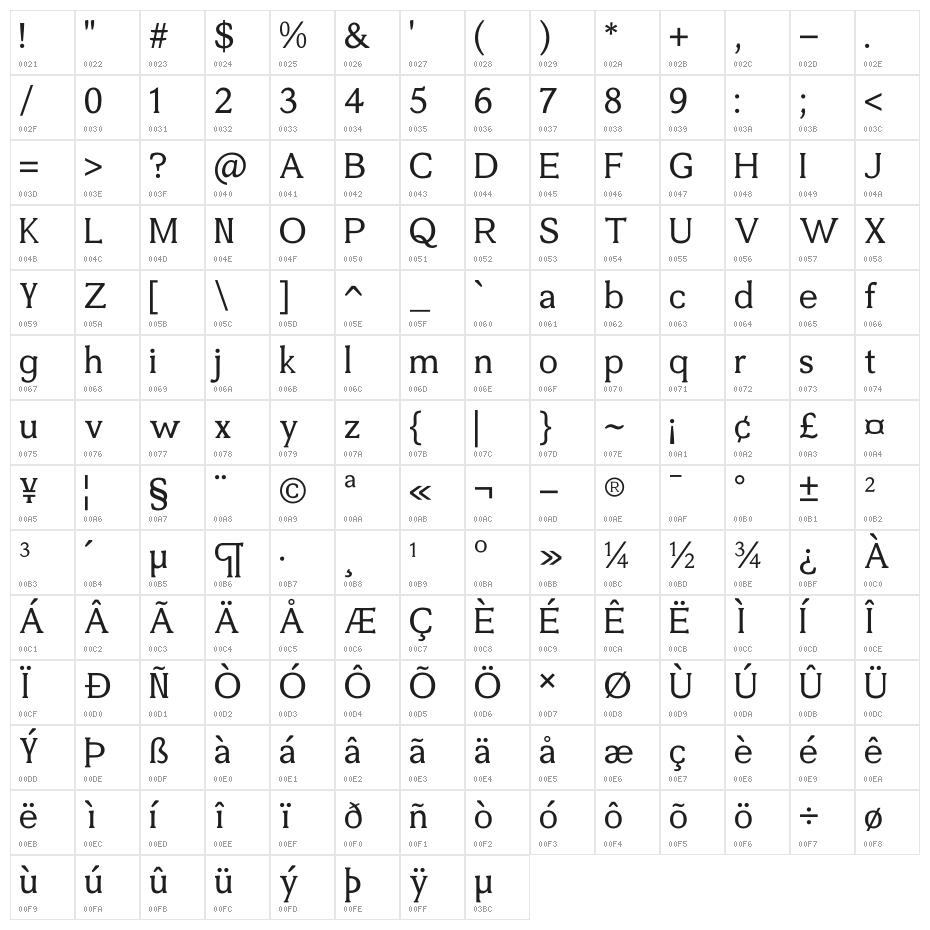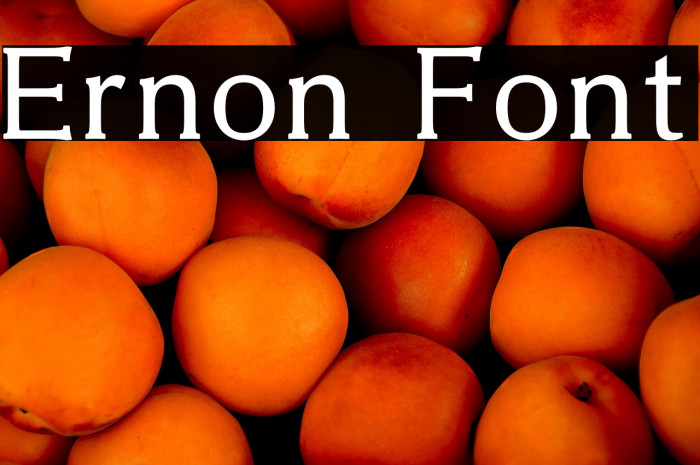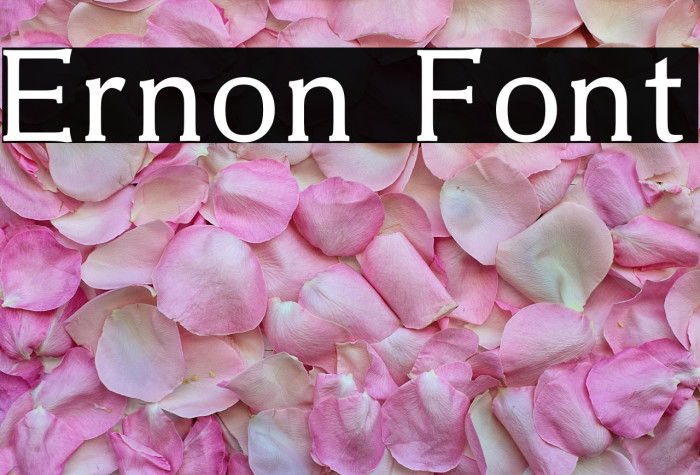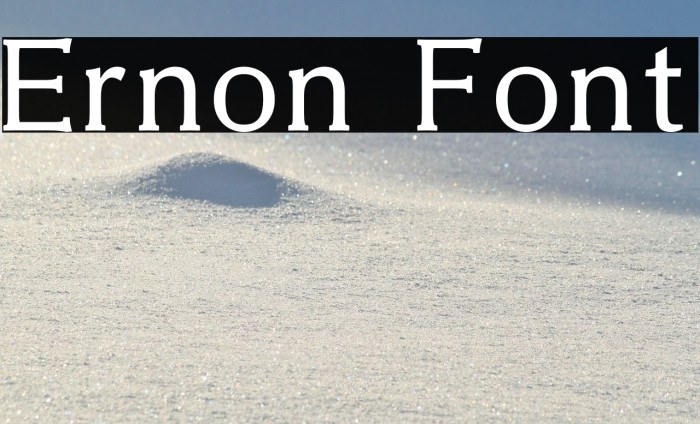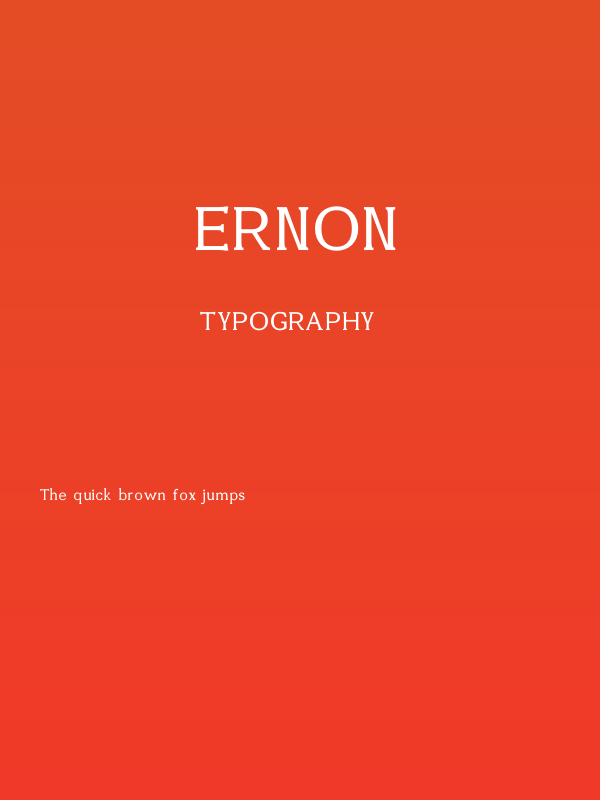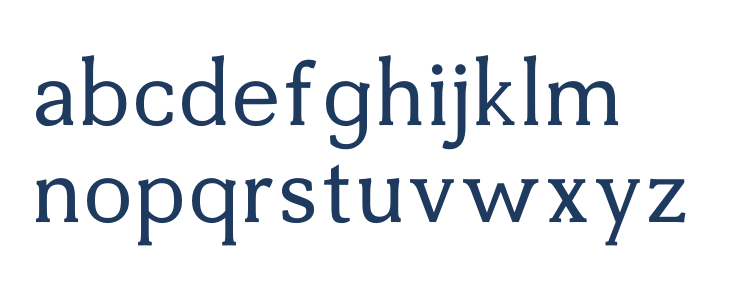
Ernon Font
Ernon Description
This font features a classic serif style with elegant, thin strokes and subtle curves. The uppercase letters are well-proportioned, with a slight contrast between thick and thin lines, giving it a refined and sophisticated appearance. The lowercase letters maintain a consistent style, with rounded edges and a smooth flow, enhancing readability. The numerals are clear and distinct, matching the overall aesthetic of the font. Special characters are designed with the same attention to detail, ensuring versatility across various applications.
| Proposed Projects | Ideal for editorial design, book covers, formal invitations, and branding projects that require a touch of elegance and tradition. |